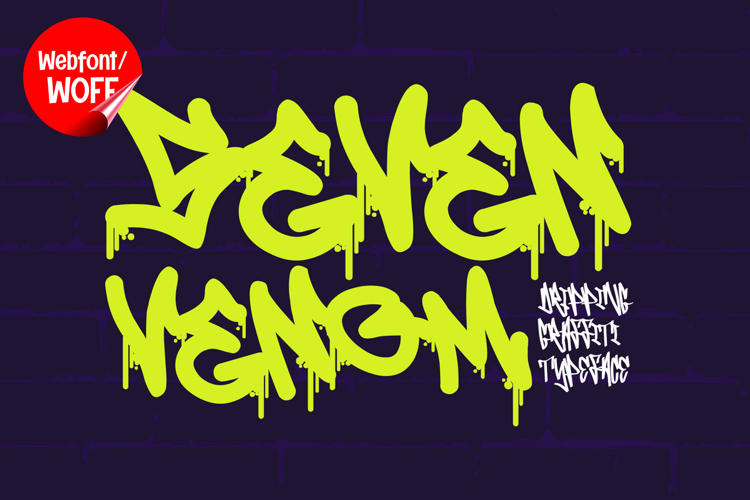
Seven Venom | Dripping Monoline Handwritten Webfont
Seven Venom is a dripping monoline handwritten webfont crafted to deliver a raw, fluid, and edgy look for modern website design. Inspired by street tagging, ink drips, and freehand marker strokes, this font combines a clean monoline structure with expressive dripping details. The result is a unique balance between readability and attitude, making it an excellent choice for projects that need a bold yet controlled handwritten style.
Seven Venom includes a complete set of uppercase characters designed with a monoline handwritten approach. The strokes maintain consistent thickness, while subtle drips and organic curves add personality and movement. This makes the font highly effective for headlines, banners, hero sections, and featured text where a strong visual identity is needed without sacrificing clarity.
In addition to its letterforms, Seven Venom also includes numbers and punctuation, allowing flexible use across different areas of a website. It works seamlessly for promotional content, branding elements, navigation highlights, and call-to-action sections. The dripping accents add a rebellious and artistic feel, while the monoline base keeps everything visually balanced.
With multilingual support, Seven Venom includes a wide range of accented characters, making it suitable for global audiences and international website projects. This ensures that your message remains consistent and visually appealing across different languages while maintaining its signature dripping style.
The dripping monoline handwritten style of Seven Venom makes it especially suitable for urban-themed websites, streetwear brands, music platforms, creative portfolios, and edgy digital campaigns. Its fluid motion and ink-like texture bring authenticity and character, helping designs stand out in a crowded digital space.
Despite its expressive and artistic appearance, Seven Venom is designed with readability in mind. The spacing and proportions are carefully adjusted to ensure legibility, particularly in display sizes. This allows designers to use the font confidently for impactful headings and short text elements without losing clarity.
Seven Venom is a webfont that merges handwritten expression with dripping graffiti-inspired details and modern web performance. Its smooth strokes, dynamic flow, and distinctive style create a powerful typographic presence for contemporary design. For projects that require a bold, creative, and visually engaging handwritten font, Seven Venom offers a unique and versatile solution.